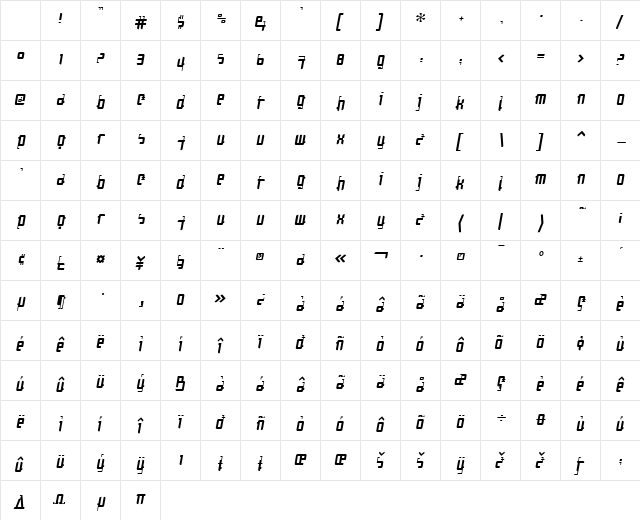
Cosmonaut is a composed and adaptable typeface that performs quietly and consistently across a wide range of design contexts. The slanted form adds forward momentum and visual energy.
Pro Tip: Use Cosmonaut for emphasis, pull quotes, and subheadings where its slanted energy can add rhythm to the layout.